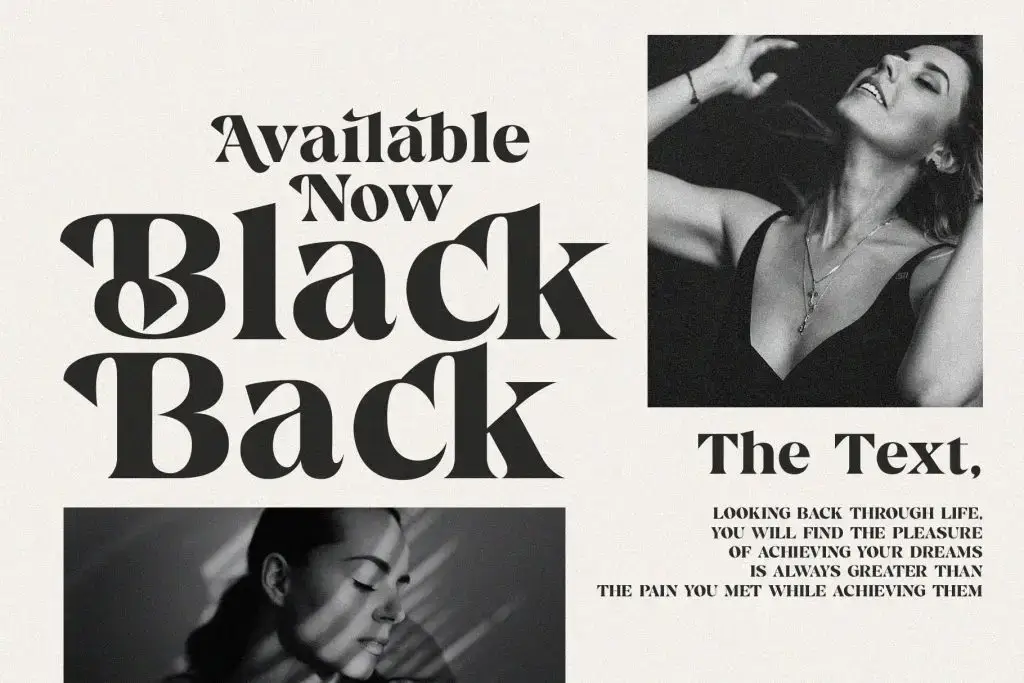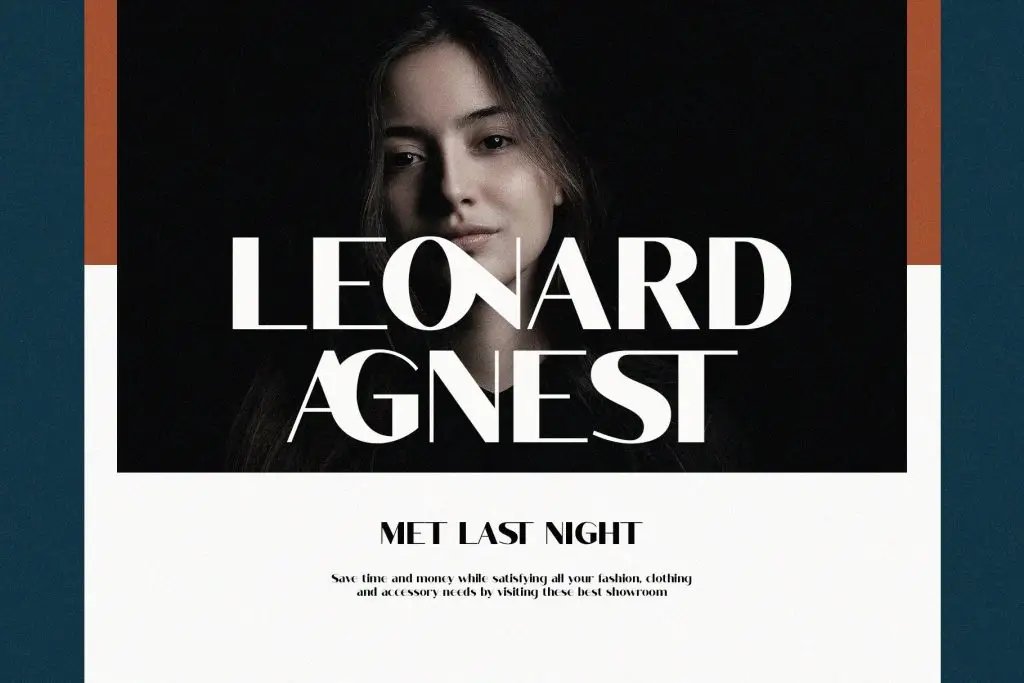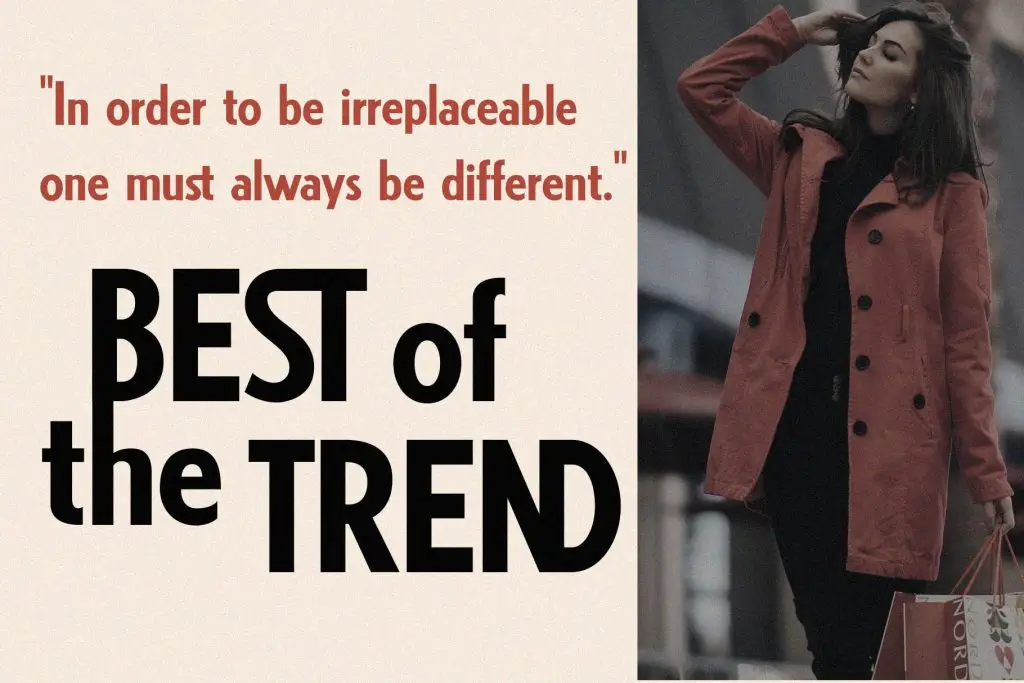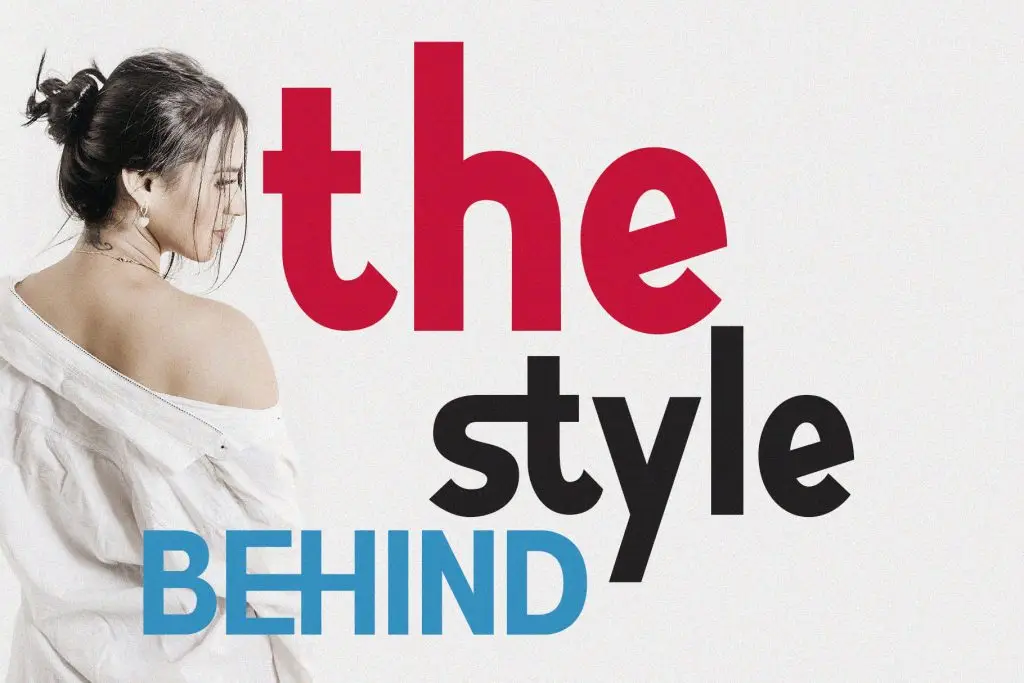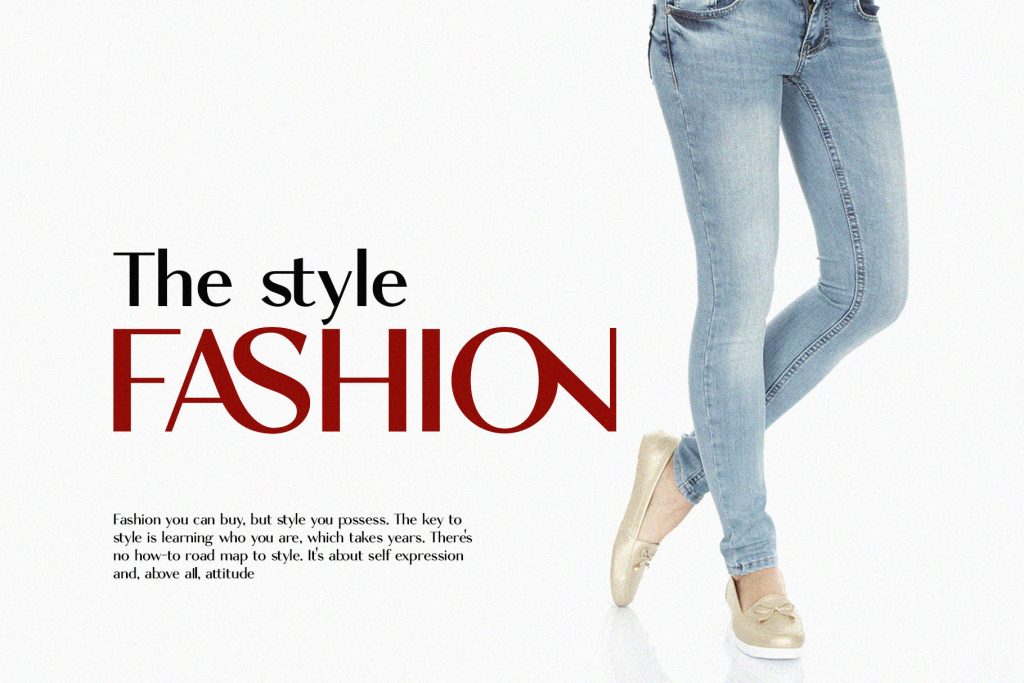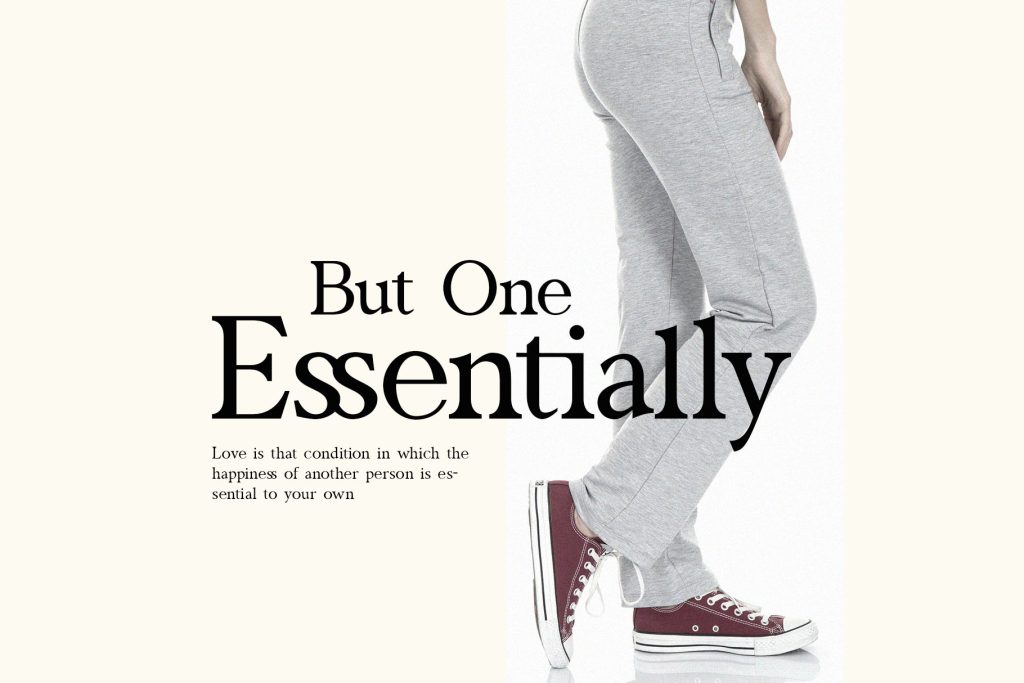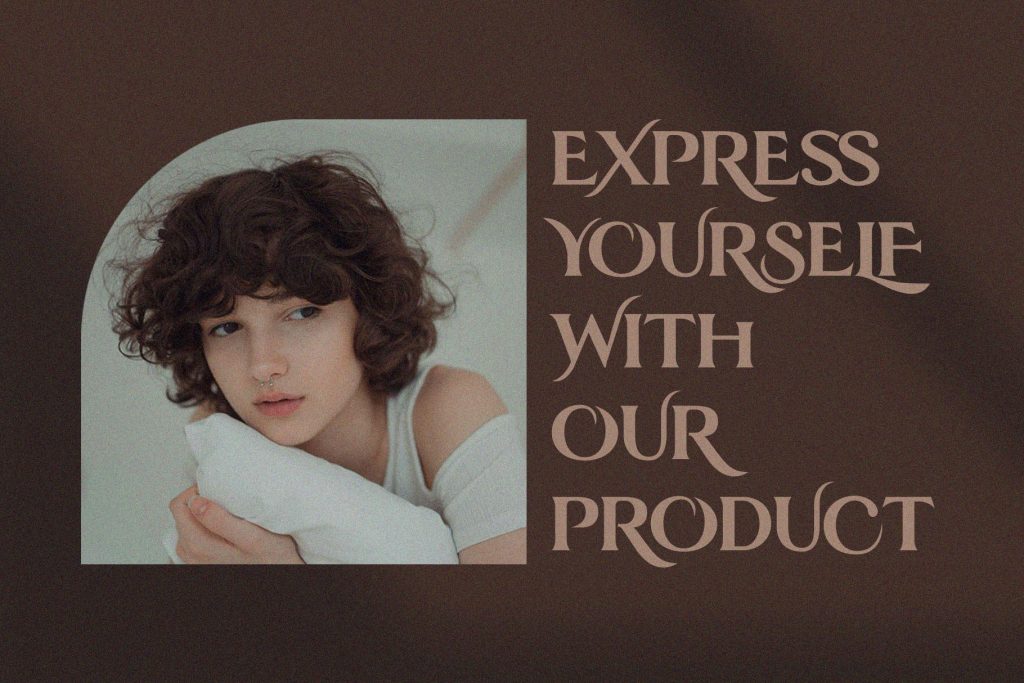
Choosing the right typography is one of the most important decisions in luxury branding. Today, elegant ligature fonts for luxury fashion have become a major trend in high-end design because they create sophistication, exclusivity, and timeless beauty. From luxury fashion logos to premium packaging and editorial campaigns, ligature fonts help brands build a strong visual identity that feels stylish and memorable.
Luxury fashion brands are no longer using typography only for readability. Fonts have become part of storytelling. The right ligature font can instantly communicate elegance, femininity, minimalism, or modern luxury.
Why Ligature Fonts Work for Luxury Fashion
Luxury branding is all about emotional perception. Customers often associate elegant typography with quality, prestige, and exclusivity.
Ligature fonts create smooth letter connections, making logos and headlines feel more refined and artistic. These subtle details can dramatically improve the visual appearance of a fashion brand.
The Psychology Behind Elegant Typography
Typography affects how people perceive a brand. In the fashion industry, elegant ligature fonts help create feelings such as:
- Sophistication
- Confidence
- Femininity
- Luxury
- Exclusivity
- Modern elegance
This is why many premium fashion brands use typography with custom ligatures, high contrast letterforms, and stylish spacing.
Ligatures Create a Signature Look
One reason ligature fonts are highly valued in fashion branding is their uniqueness. The connected letterforms create a custom-designed appearance even when using ready-made fonts.
This makes logos feel more exclusive and less generic.
For example, a ligature between letters like “th,” “fi,” or “ll” can transform an ordinary wordmark into a sophisticated fashion identity.
The Rise of Minimal Luxury Typography
Modern luxury branding has shifted toward minimalism. Fashion brands now prefer clean layouts, spacious composition, and elegant typography over excessive decorative visuals.
Ligature fonts fit perfectly into this design movement.
Why Minimalism Works in Fashion Branding
Minimal branding creates:
- Better readability
- Stronger visual focus
- Timeless aesthetics
- Premium appearance
- Versatile logo systems
Elegant ligature fonts help maintain simplicity while still adding personality and sophistication.
This balance is especially important in industries such as:
- Luxury fashion
- Jewelry
- Beauty
- Skincare
- Perfume
- Editorial magazines
How Ligature Fonts Improve Fashion Logos
A strong fashion logo needs to feel recognizable, flexible, and visually refined.
Ligature fonts help achieve this by improving the overall harmony of letterforms.
1. Better Visual Flow
Connected letters create smoother rhythm and balance in wordmarks. This makes logos feel polished and cohesive.
2. More Memorable Branding
Unique ligatures can make a logo instantly recognizable. Small typographic details often become part of the brand identity itself.
3. Elegant Social Media Presence
Fashion brands rely heavily on Instagram, Pinterest, and digital campaigns. Ligature fonts perform well because they create stylish visuals even in minimalist layouts.
Best Uses for Elegant Ligature Fonts
Elegant ligature fonts are extremely versatile in fashion design projects.
Luxury Fashion Logos
Many fashion startups use ligature fonts for clean, modern logos.
Packaging Design
Elegant typography improves packaging aesthetics and creates a premium unboxing experience.
Editorial and Magazine Layouts
Ligature fonts work beautifully in headlines, cover titles, and campaign typography.
Social Media Branding
Minimal typography with elegant ligatures performs especially well on Instagram fashion feeds.
Fashion Websites
Sophisticated typography helps create stronger first impressions on landing pages and e-commerce websites.
You can also explore more typography inspiration through the Font Kingdom Blog for modern branding ideas and font trends.
How to Choose the Right Ligature Font
Not all ligature fonts work for luxury fashion branding. Choosing the right font requires understanding your brand personality.
Consider Brand Identity
Different styles communicate different moods:
- Script ligatures → feminine and romantic
- Serif ligatures → timeless luxury
- Sans serif ligatures → modern elegance
Focus on Readability
Luxury typography should remain clean and readable. Avoid fonts with excessive decorative elements that reduce clarity.
Conclusion
Elegant ligature fonts are more than typography trends. They are powerful branding tools that help fashion businesses create premium, memorable, and visually sophisticated identities.
From luxury logos to editorial campaigns and social media branding, ligature fonts offer the perfect balance between minimalism and elegance.
If you want to create a stylish and modern fashion brand, investing in the right typography can make a significant difference.